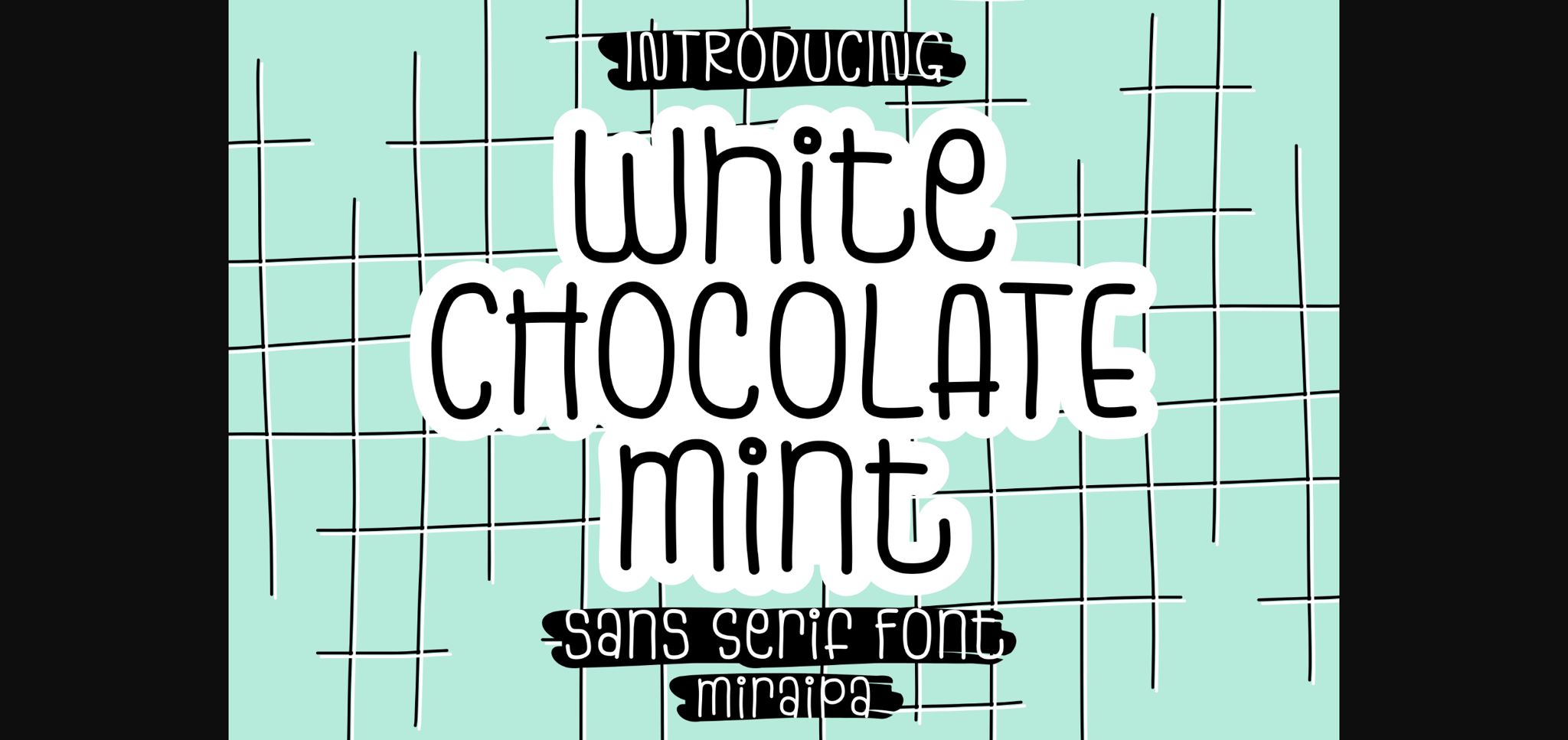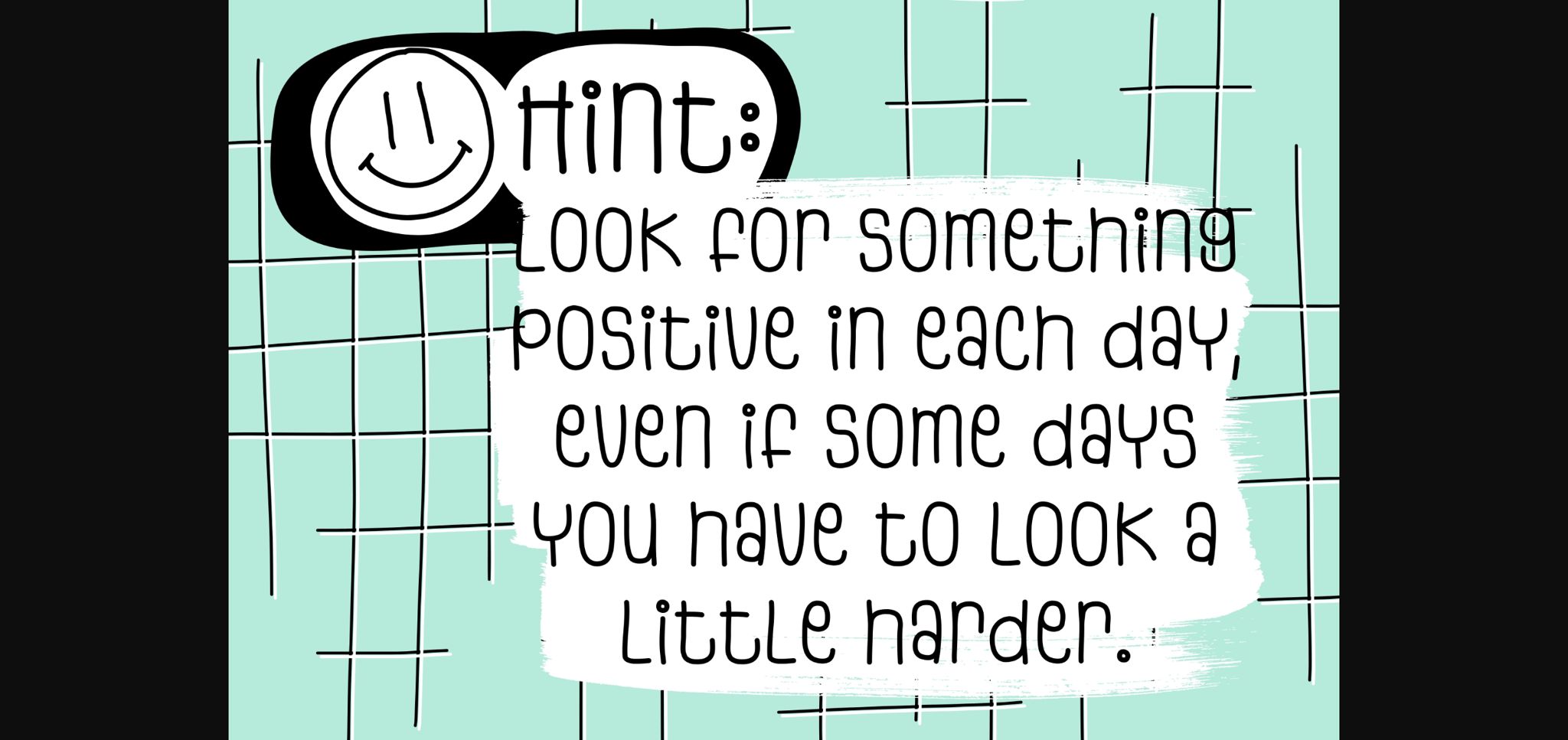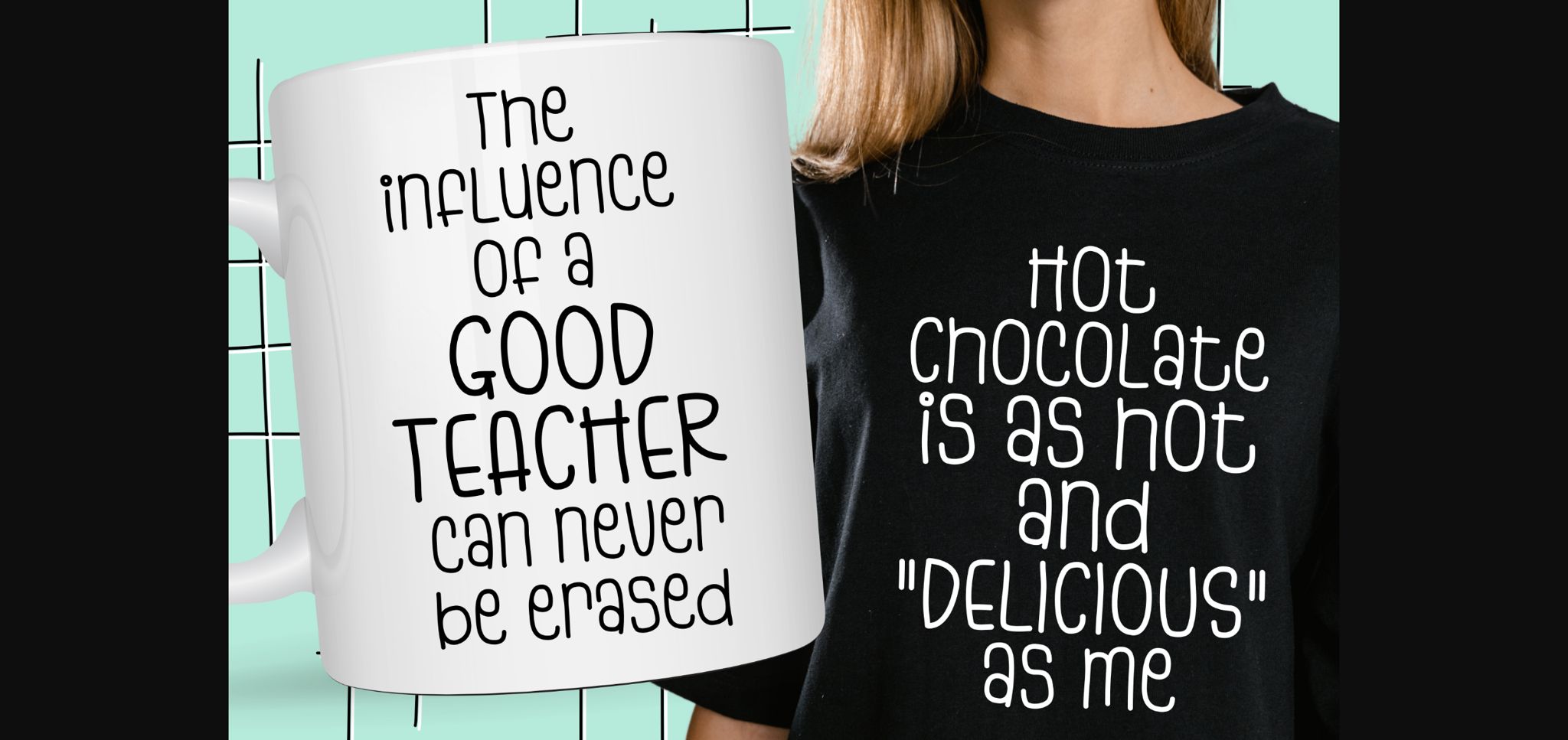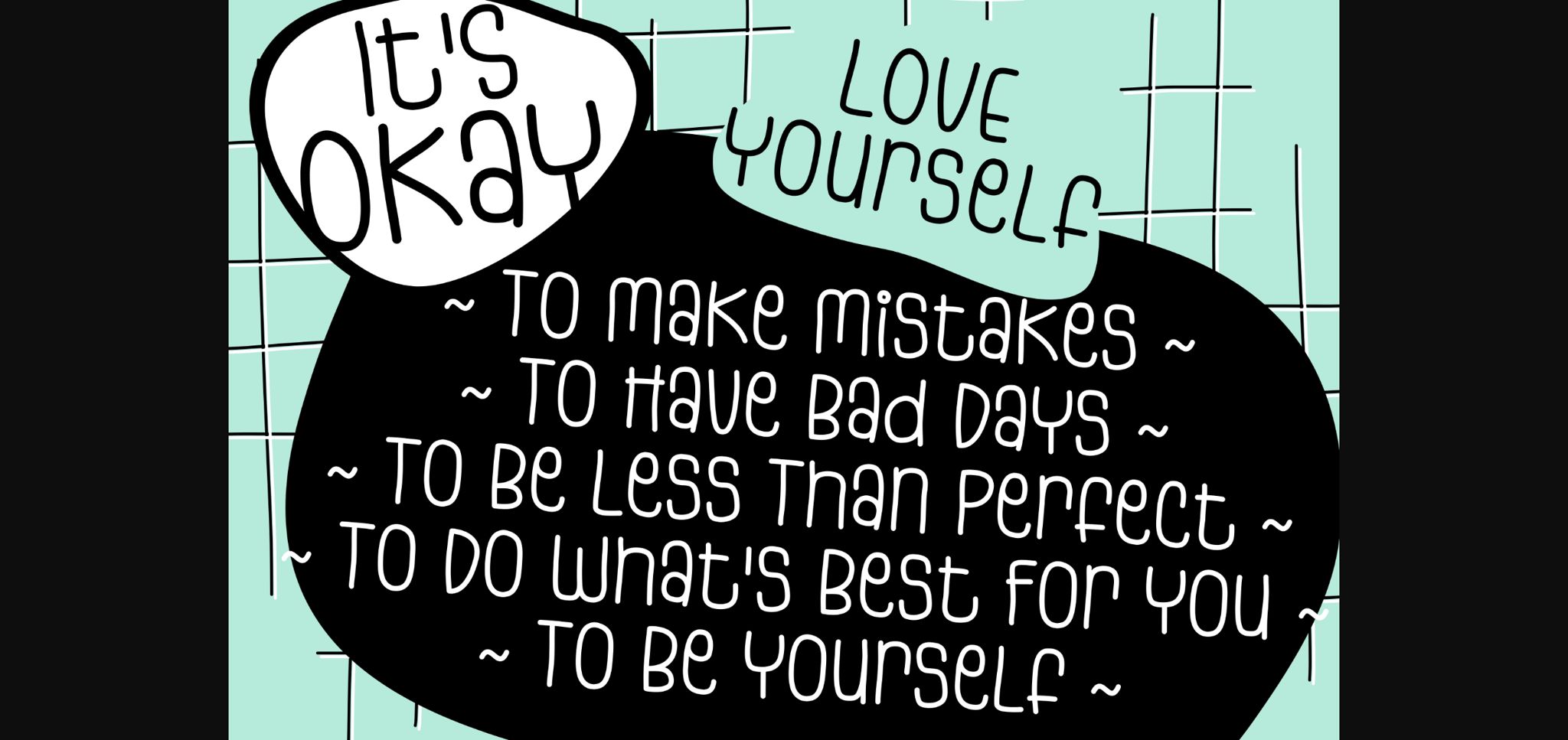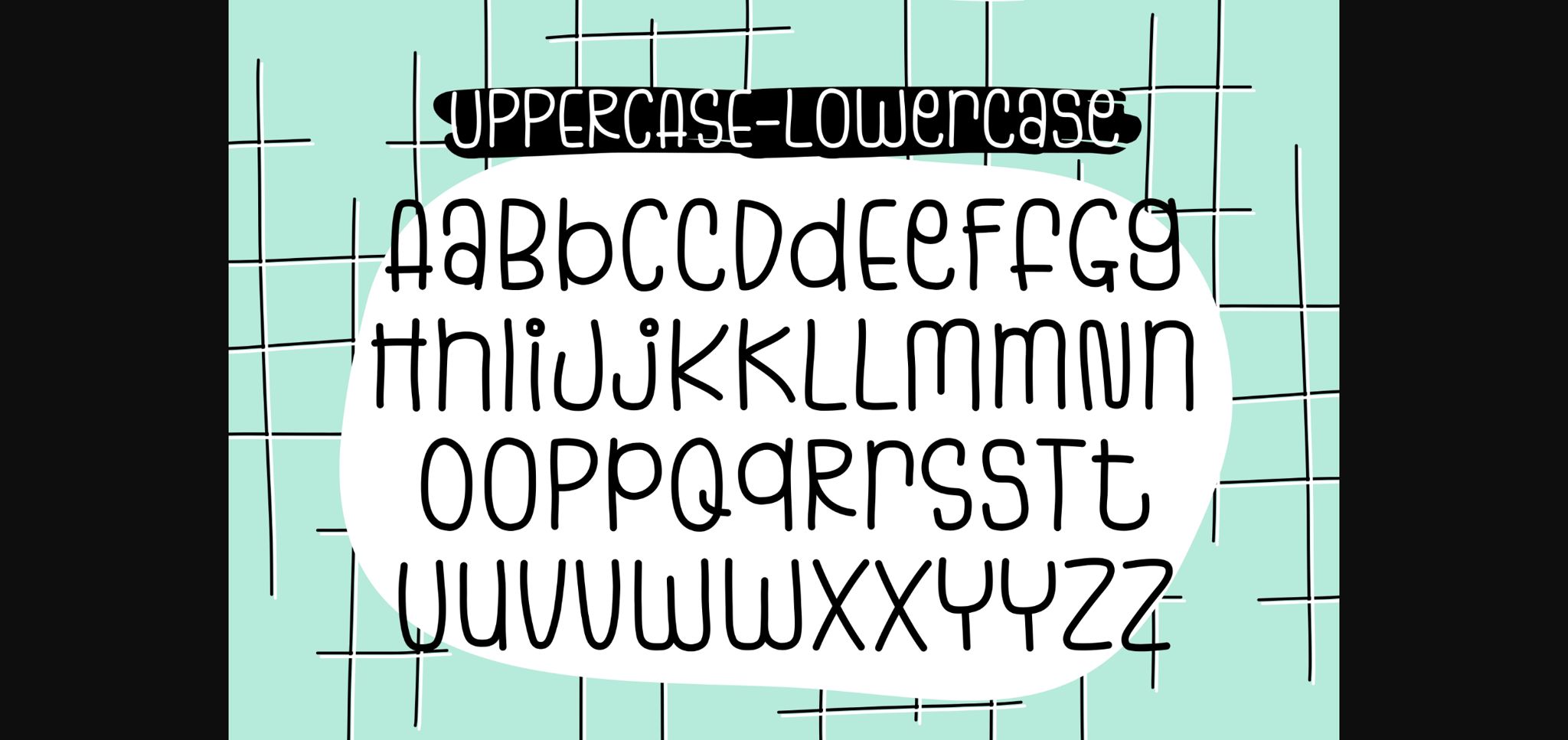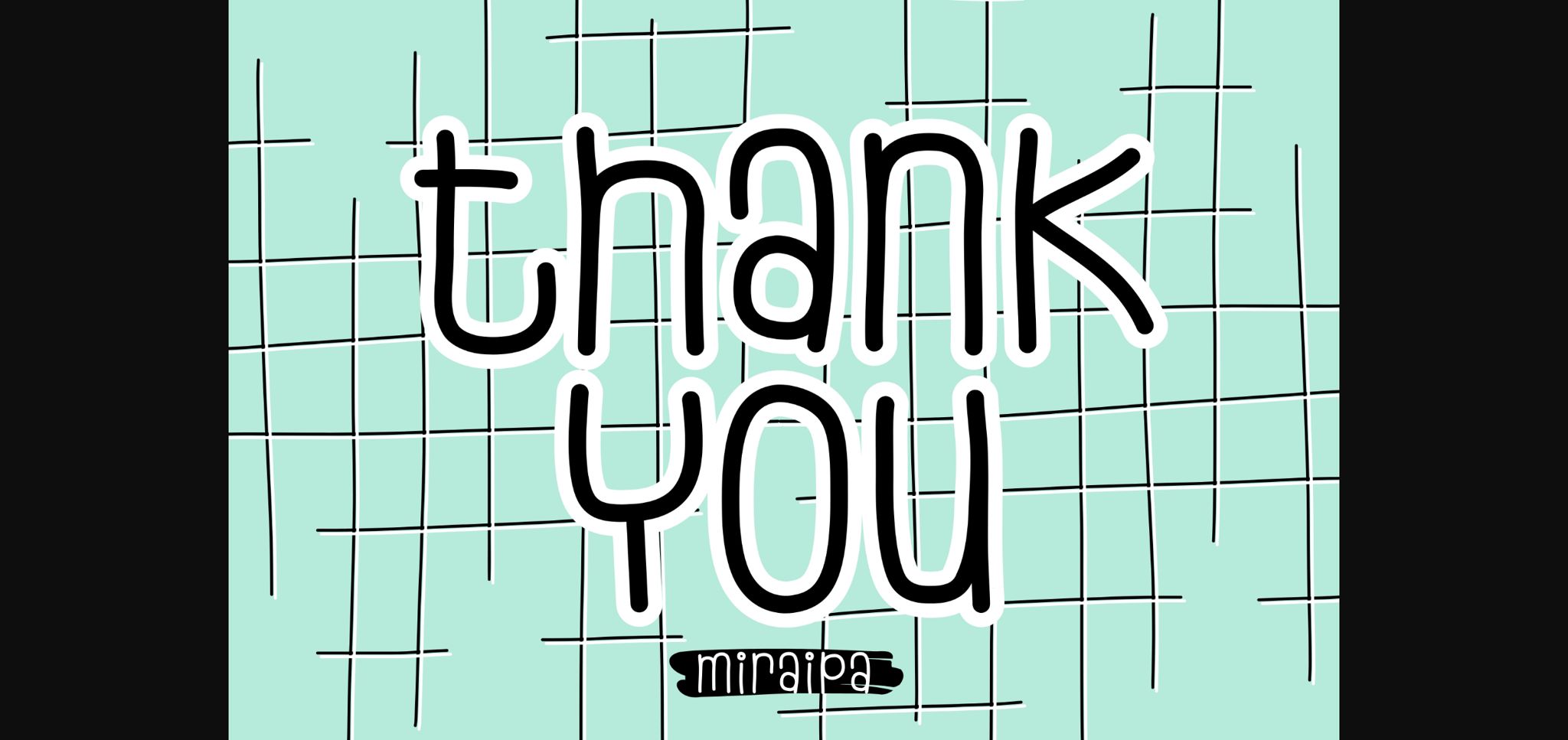
White Chocolate Mint Font
About White Chocolate Mint Font
White Chocolate Mint is designed in a cute and friendly sans serif font outline style. It’s charming, whimsical, and a bit quirky. It would be awesome to your fun projects or diary planner. Let’s try it to your perfect projects such as Easter, back to school, wedding, party decoration, invitations, Fall, Halloween, Christmas, posters, blogs, clothing, child-related designs, greeting cards, social media posts or anything that needs a friendly touch. Add it now to your fonts library, and it will bring any of your DIY projects to life.